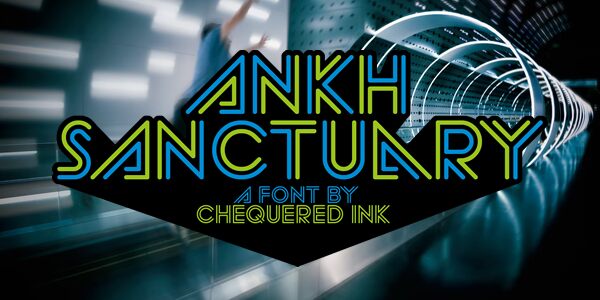
Ankh Sanctuary
Ankh Sanctuary is a captivating display font that exudes a groovy, retro-inspired aesthetic. Designed by Chequered Ink, this font effortlessly blends bold, curvilinear strokes with a playful, almost psychedelic sensibility.
The intricate, interlocking letterforms create a visually striking and dynamic appearance, making Ankh Sanctuary an ideal choice for eye-catching headers, poster designs, and branding applications that aim to evoke a sense of nostalgia and counterculture.
Its distinct personality lends itself well to a variety of creative contexts, from vintage-inspired concert posters to modern, bohemian-influenced layouts.